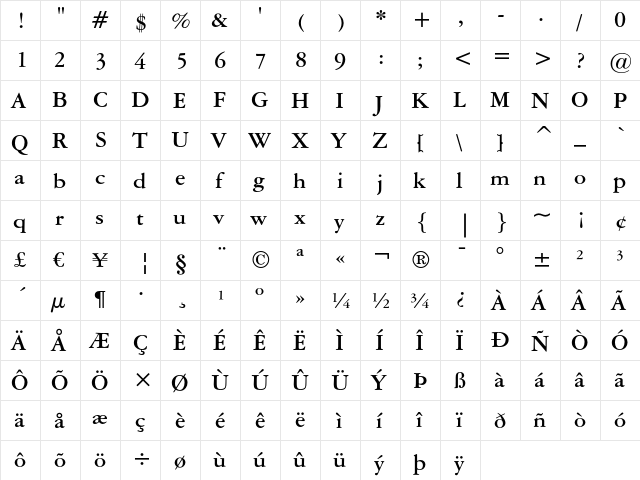
American Garamond Bold
Design Context for American Garamond Typeface
American Garamond offers clean, dependable letterforms without strong stylistic allegiance, making it a practical choice for designers who need flexibility. Its bold stroke weight gives it real presence on the page.